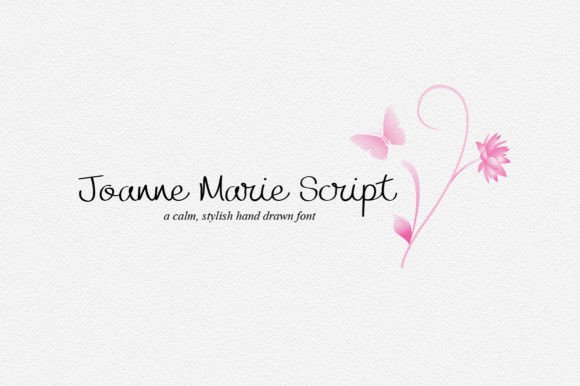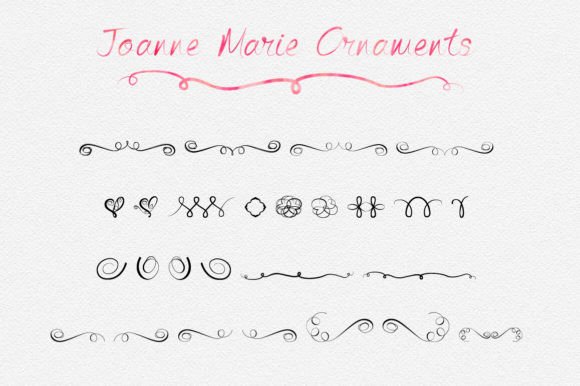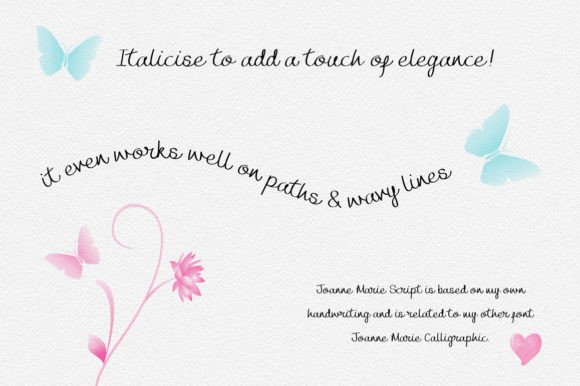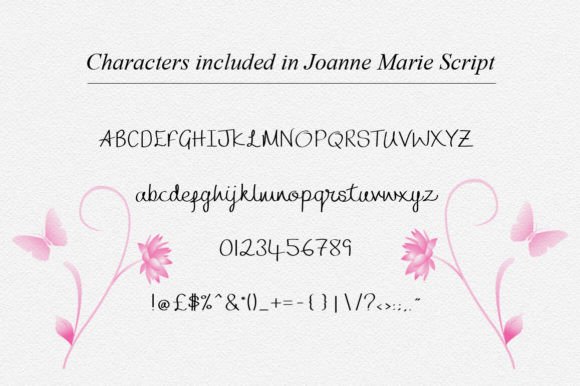
Joanne Marie Font
About the Joanne Marie Font
Get ready to be inspired by Joanne Marie Font, a fresh and dynamic typeface for modern creators. Joanne Marie Script is a handwritten, elegant and flowing font. It can be used for a wide range of projects, such as logo designs, party & wedding invitations, t-shirt designs, signs, magazine design, greetings cards, poster design and much more!
Joanne Marie Script’s elegant flourish is ideal for projects requiring a touch of refined femininity. It excels in headlines, short text blocks on invitations or packaging, and logos where a hand-drawn feel adds personality. Avoid using it for body text or long paragraphs; its flowing nature can hinder readability in extended use.
Pairing Joanne Marie with a clean sans-serif like Montserrat or a geometric sans-serif like Futura provides a strong contrast, balancing its script character with modern clarity. For a warmer feel, consider pairing it with a serif like Garamond or Playfair Display.
The overall personality is sophisticated yet approachable, making it suitable for brands focused on beauty, fashion, or luxury goods, but equally at home in wedding stationery or feminine lifestyle brands.